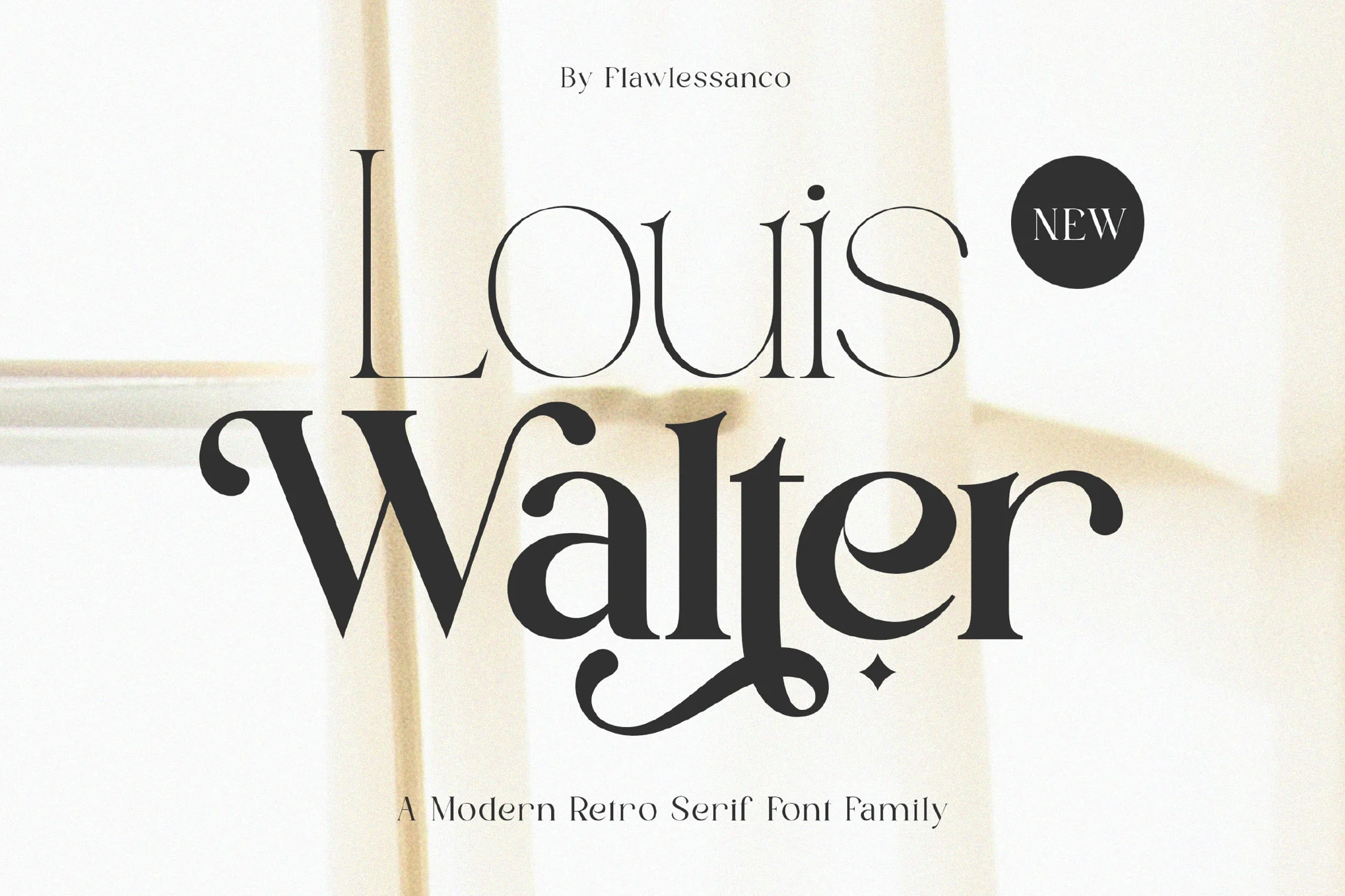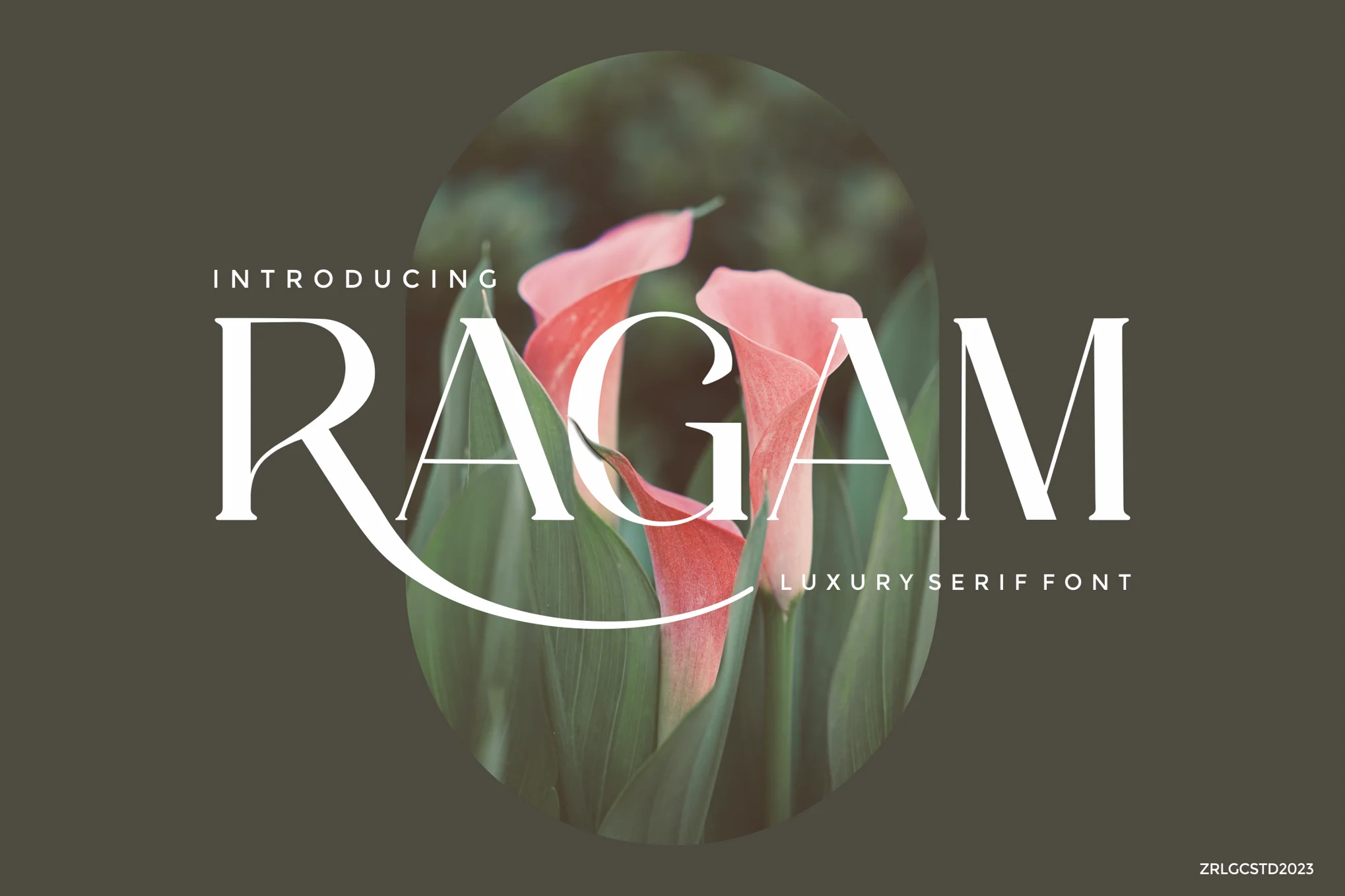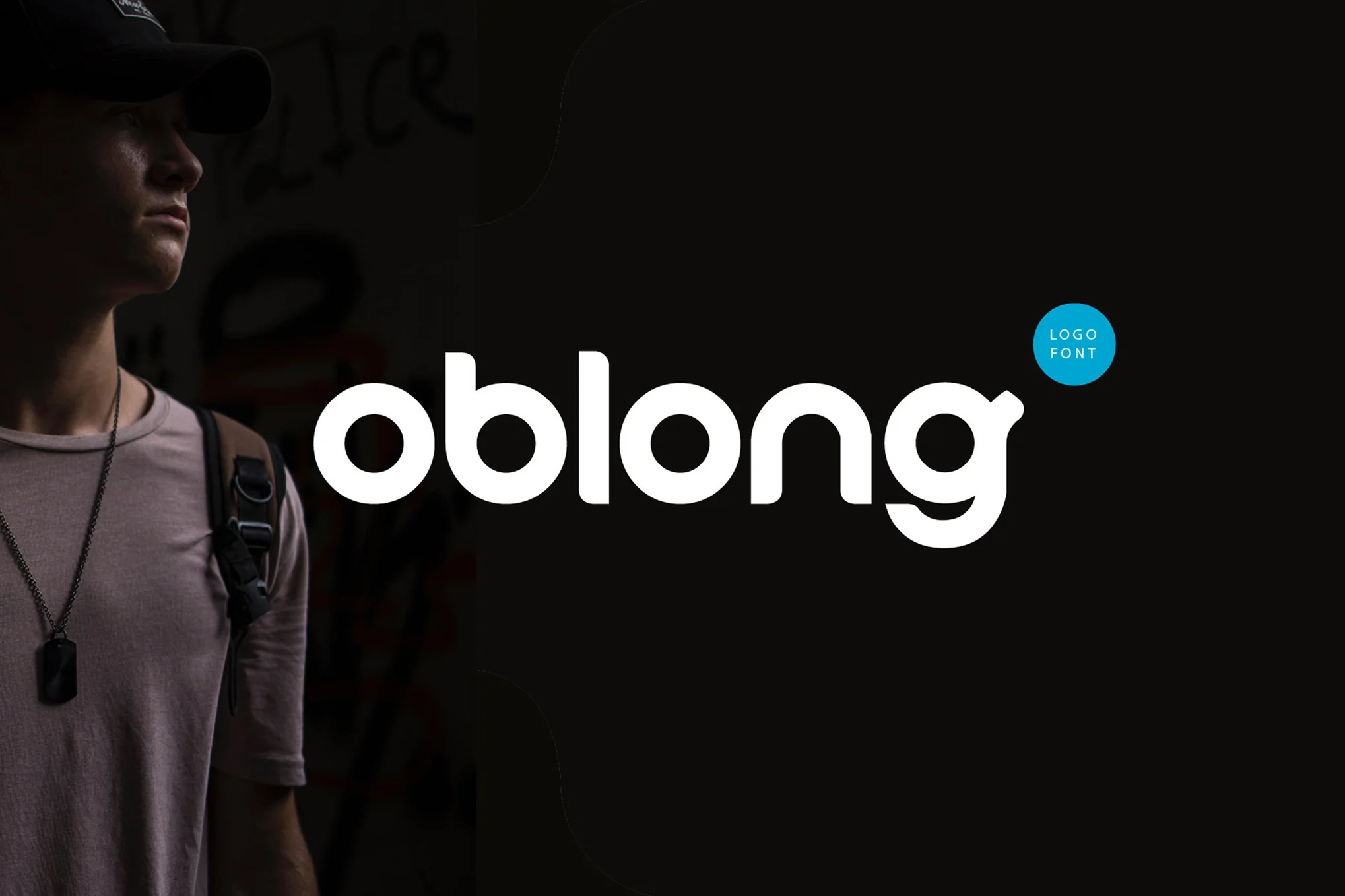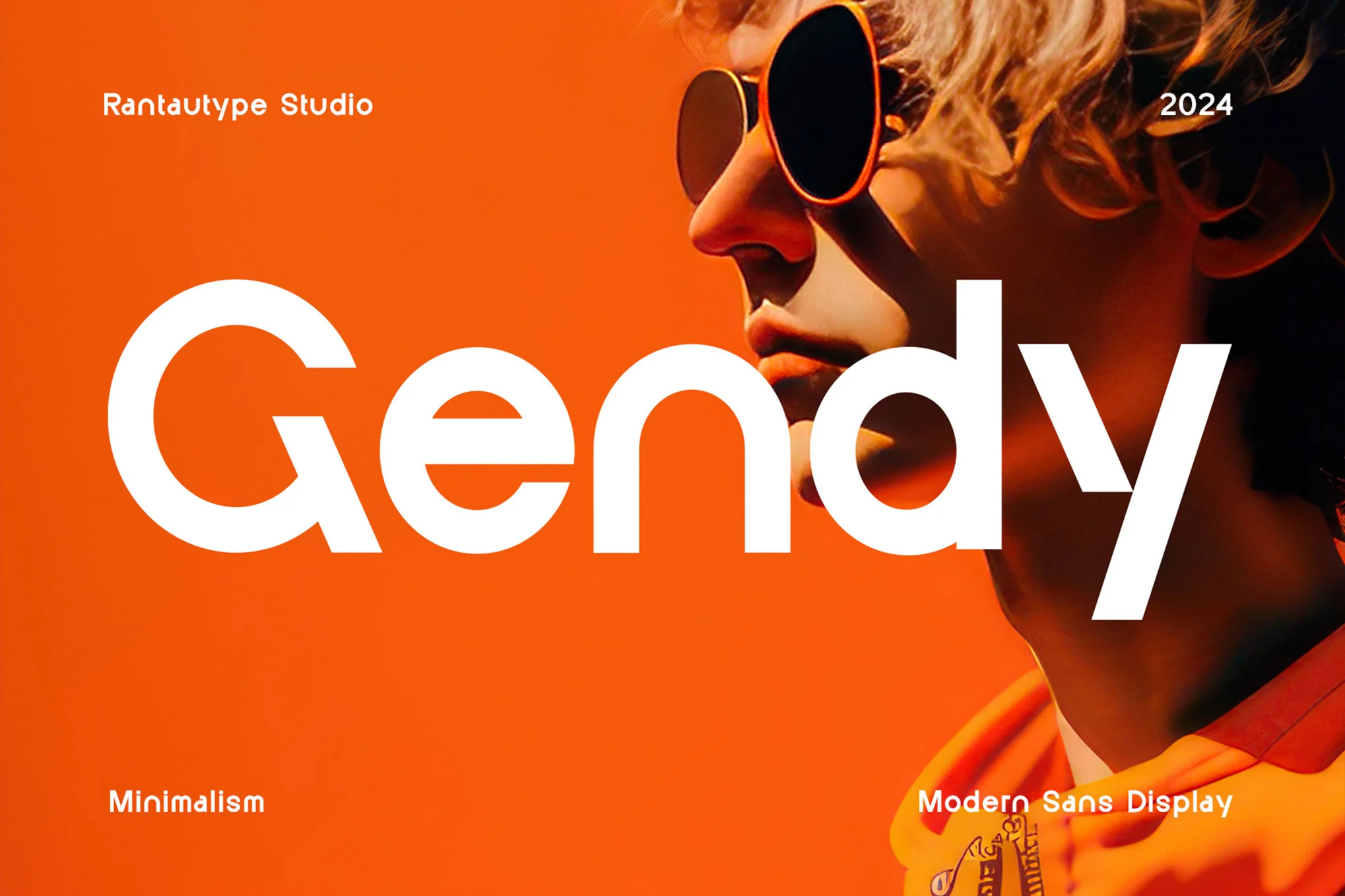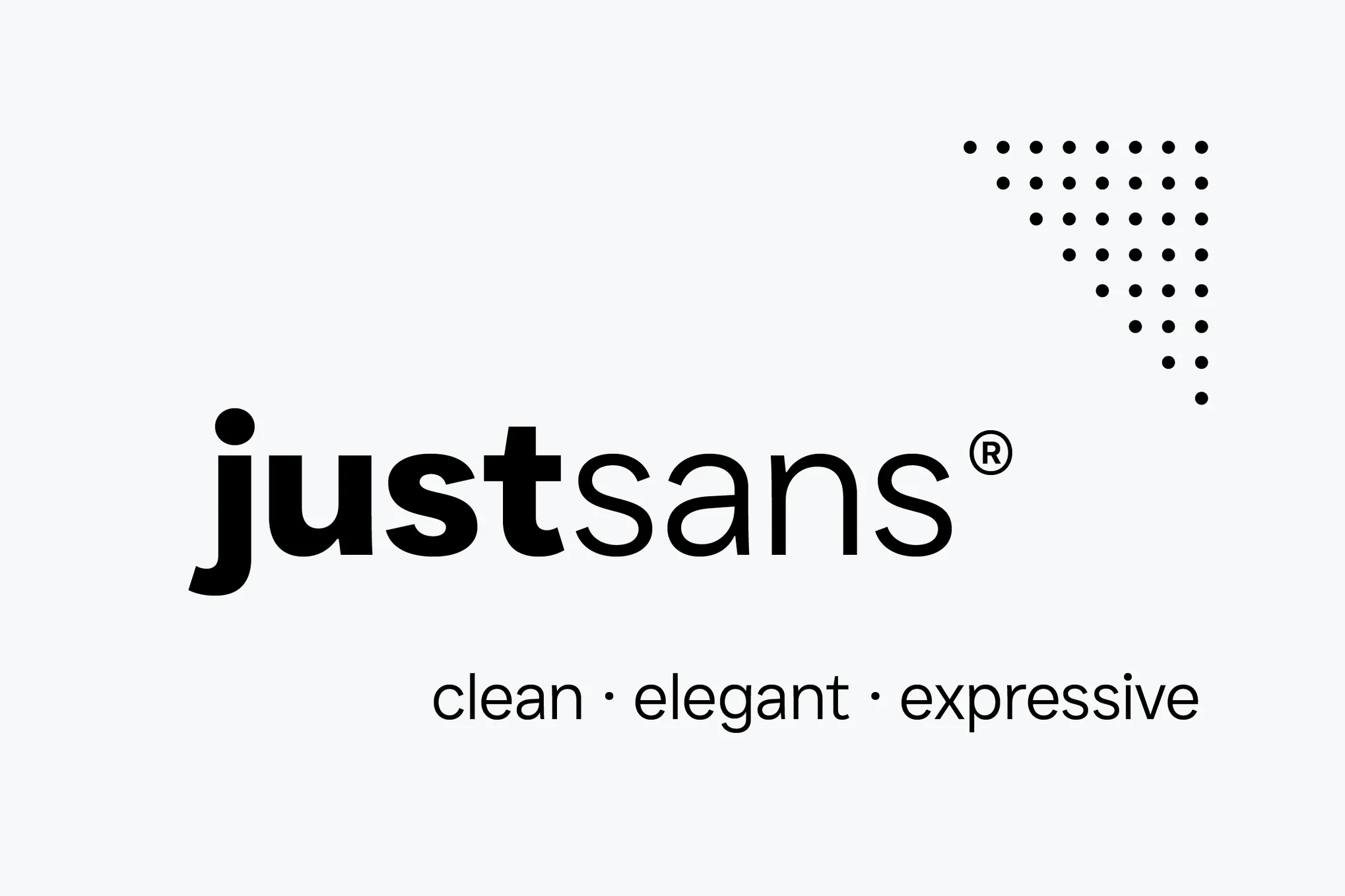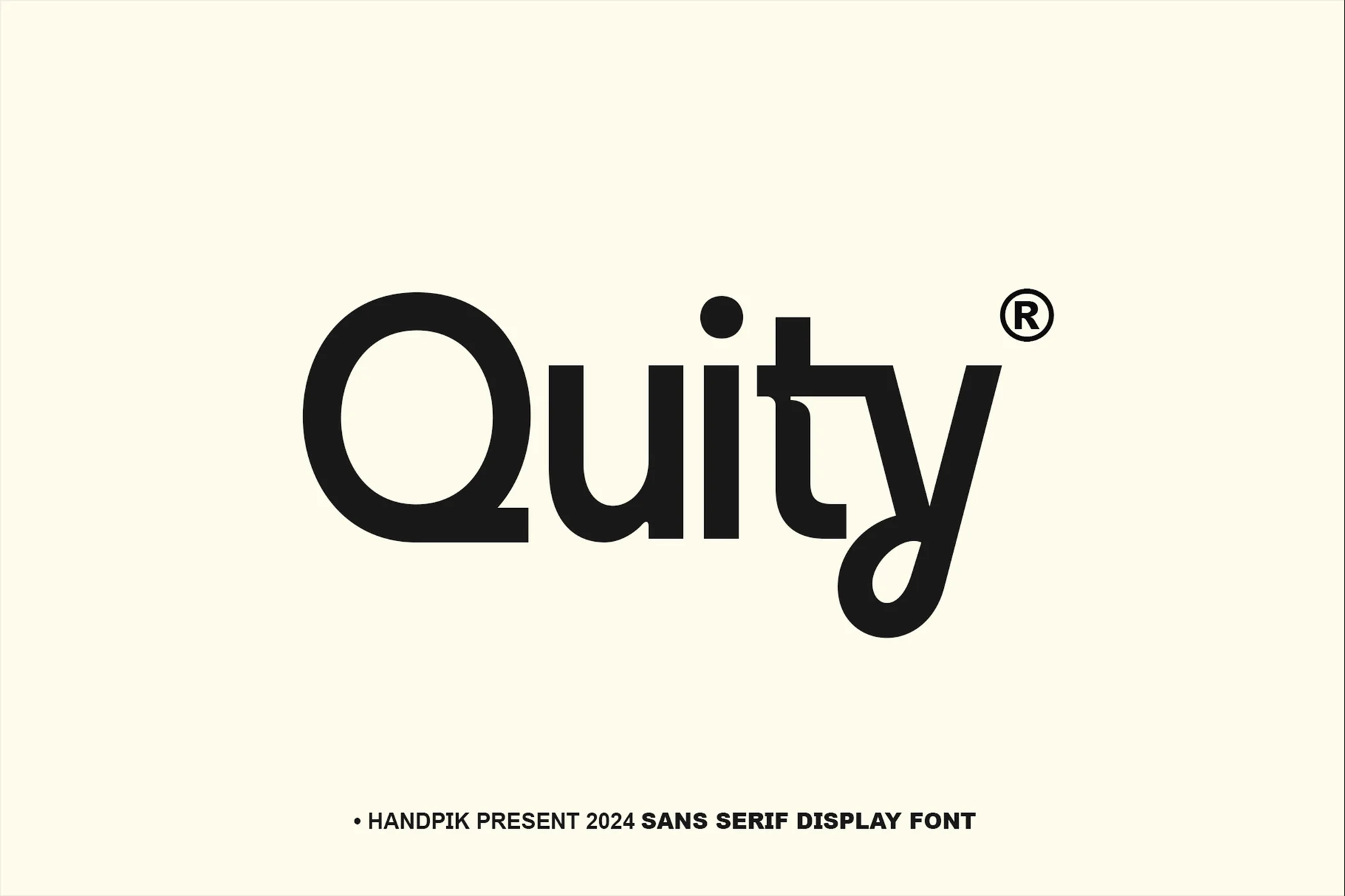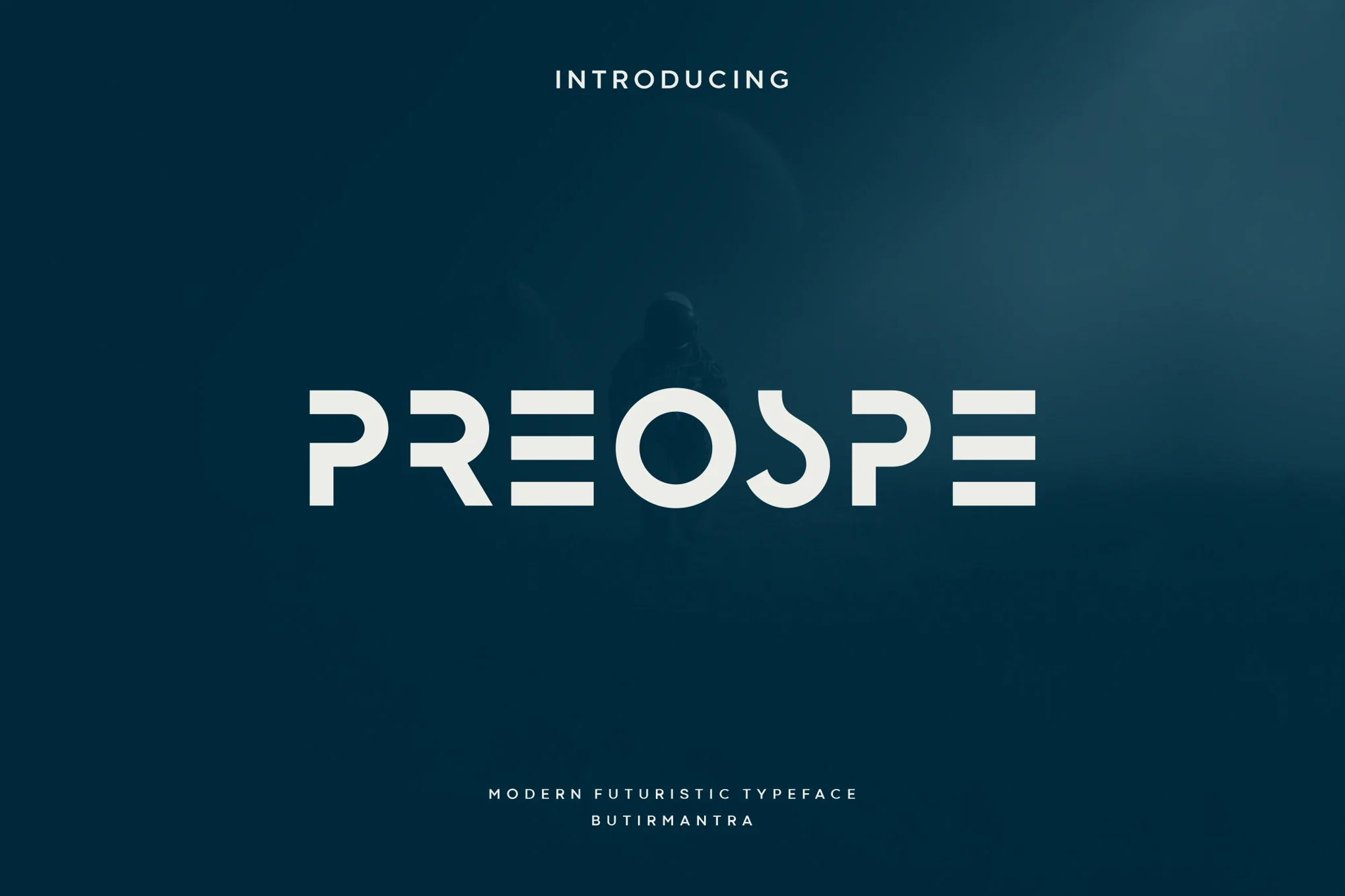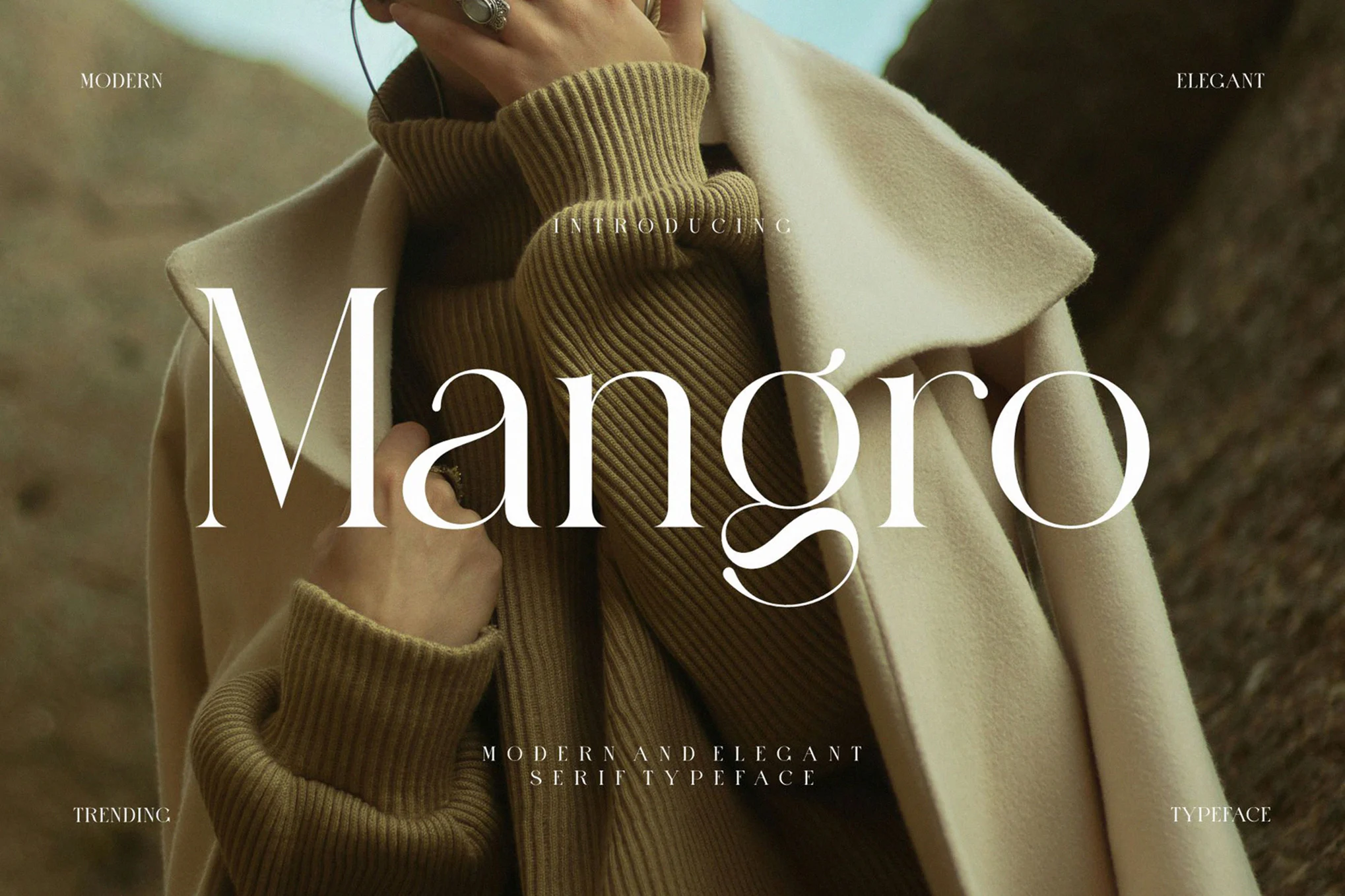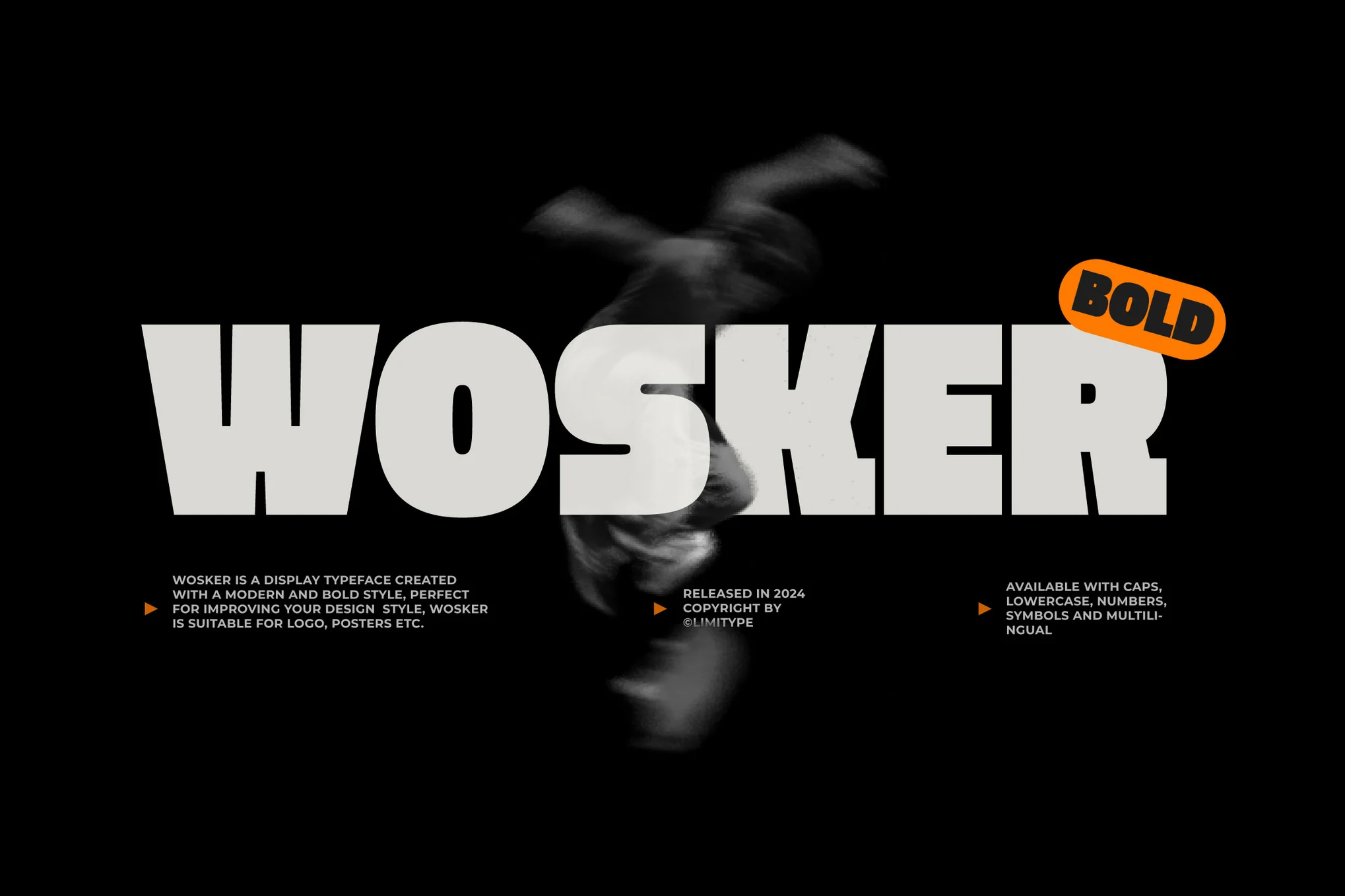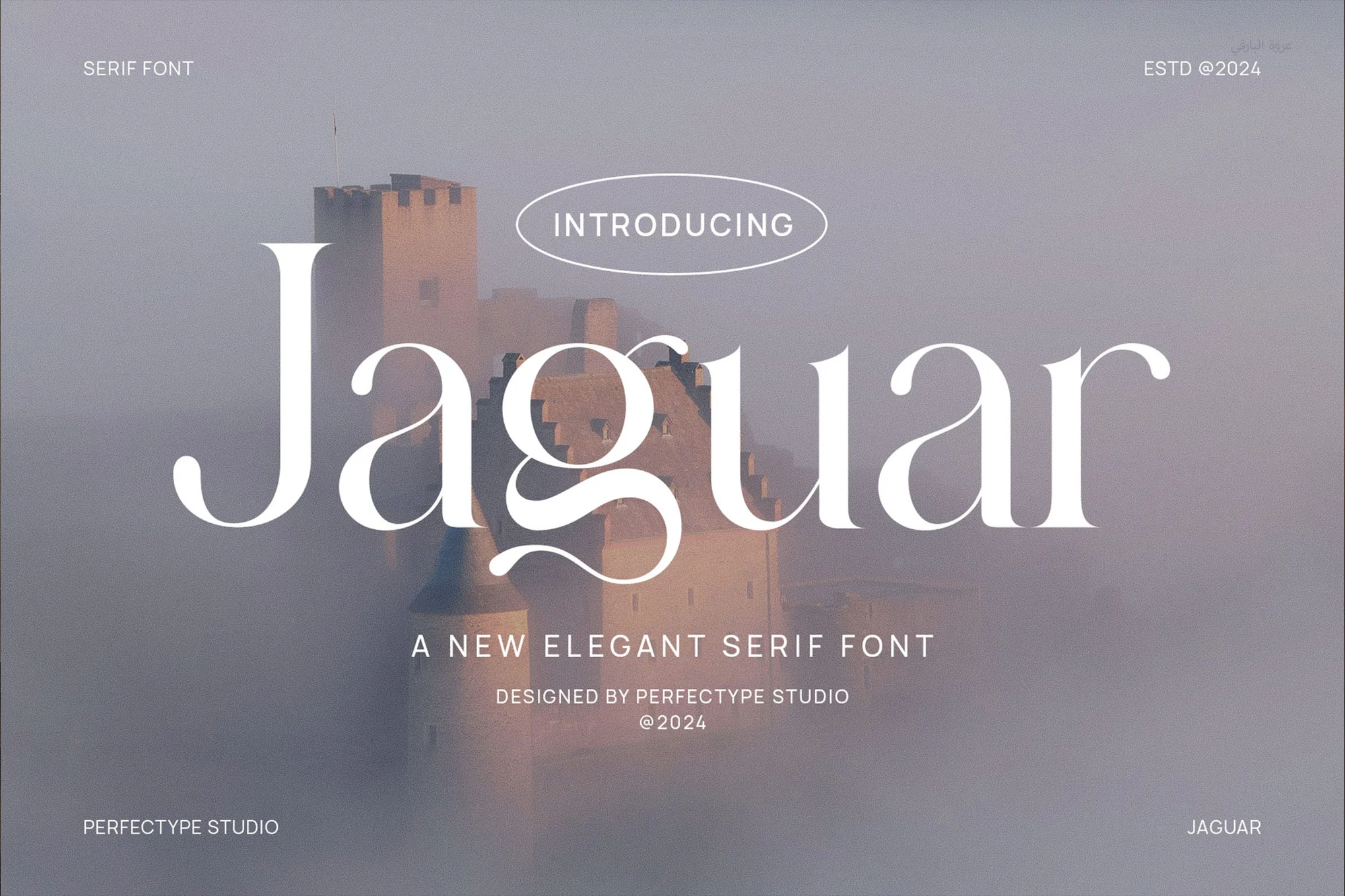
Are you finding it difficult to pick the perfect number font for your next project? Fonts play a huge role in making designs look special, especially when dealing with numbers for logos, posters, or headlines. The right font can make your text stand out or fit perfectly into the theme you have in mind.
With so many options out there, it can be overwhelming to choose. That’s why I’ve put together a list of 25 amazing number fonts for 2025. From classy serif styles to modern, clean sans-serifs, these fonts are perfect for every kind of design. Whether you want something elegant, playful, or bold, this list has got you covered.
Each font listed here comes with its unique style and use case. You’ll get to know exactly where each font shines and how to use it in your work. Let’s explore these fonts and see how they can make your numbers look fantastic!
Best Number Fonts For Design Needs in 2025
Louis Walter Retro Serif Font Family
Step back in time with "Louis Walter," a modern retro serif font family that combines the charm of vintage typography with contemporary sophistication. Perfect for branding, editorial design, wedding, invitation, branding, logo, magazine, t-shirt, print, and more.
Ragam Luxury Font
Ragam is a modern and luxury serif font that we designed with original feel for your needs. This cool font is complete with Uppercase, Lowercase, Numeric & symbols.
Oblong logo font
Oblong is a decorative sans serif typeface with brings science fiction style, modern and minimalist. It can appropriate for many logos, headlines, and titles.
Gendy Modern Sans Font
Gendy is modern sans font insprire by modern grotesque with geometric details and deep in industrial design principles. Gendy is a perfectly choice for any creative endeavor, chic, lifestyle design such as logos, advertisements, watermark on photography, stationery, branding project, display and magazine, etc.
JUST Sans® Clean Modern Minimal Geometric Typeface
JUST Sans is a highly versatile typeface with endearing, modernist warmth, geometric legibility, and a distinctive friendly bite. With a clean, simple, and minimal aesthetic, JUST Sans is a functional workhorse with 7 weights, complete Latin extended language support, precise hand-adjusted kerning, and a variable version for maximum versatility.
Zisel Sans Serif Font
Zisel Sans Serif Font from our set of 5 premium weights and it is good for making creative displays and it has art-deco touch. It’s a lovely and unique serif font in our store, allowing you to make each word look completely stylish! It Suits best for modern / clean designs, logos, headlines, banners and templates etc.
Yessica Sans Serif Font
Introducing the Free Yessica Sans Serif Font, a complimentary sample from a collection of 4 Premium Font Family. Comprising four distinct weights, this font family offers a glimpse into the world of elegant typography. It’s a taste of creativity that’s available for both personal and commercial use.
Syabil Demo Sans Serif Font
Syabil Demo Sans Serif Font that crafted with the intention to present a clean, legible, multipurpose font that easy to read. This font consist of 9 weight with each paired by italic, contain Latin Plus language support with more than 11.700 glyphs in all weight with some opentype.
Conceta Serif Font
Introducing Conceta Serif Font, an elegant, modern and luxury font with styled thinly with harmonious curves to shape your design to perfection. Conceta font is to use for headers, logos, weddings, posters, invitations, engagements, valentines, back to school, packaging, lettering, etc.
Pierson Serif Font Free Download
Exciting news! We’re sharing the Pierson Serif Font for free, perfect for your personal projects. This easy-to-use font includes large letters and numbers. If you enjoy using this free sample, you might want to check out the full Pierson Serif Typeface. It’s bold and ideal for headlines, fitting for various uses from print to digital.
Norwalk Serif Font – Free Download
We are pleased to present Norwalk Serif Font, a modern, sleek and sophisticated typeface perfect for any creative project. With its clean lines and elegant curves, this font is guaranteed to make your designs stand out.
Quity Sans-Serif Display Font
Quity will perfect for many project: book, magazines, logo, branding, photography, quotes, blog header, poster, advertisements, etc.
Preospe - Modern Futuristic Font
Preospe is a modern, elegant and futuristic look font. This font would be ideal for writing web designs, business cards, logo, magazine or just about anything else that requires a unique touch.
Mangro Elegant Serif Typeface
Mangro Modern and Elegant Serif Typeface inspired by the famous minimalist logo perfect for the purposes of designing templates, brochures, videos, advertising branding, logos, invitation, layout design, elegant crafting, beauty design and other.
Are there fonts suitable for logo designs?
Absolutely! Oblong Logo Font and Preospe – Modern Futuristic Font are designed for logos. They give a unique and bold look to branding, making your logo stand out.
Which fonts are ideal for fashion or luxury branding?
Mangro Elegant Serif Typeface and Jaguar Elegant Serif Font Typeface are ideal for fashion and luxury branding. They offer a sophisticated and high-end look, perfect for premium products.